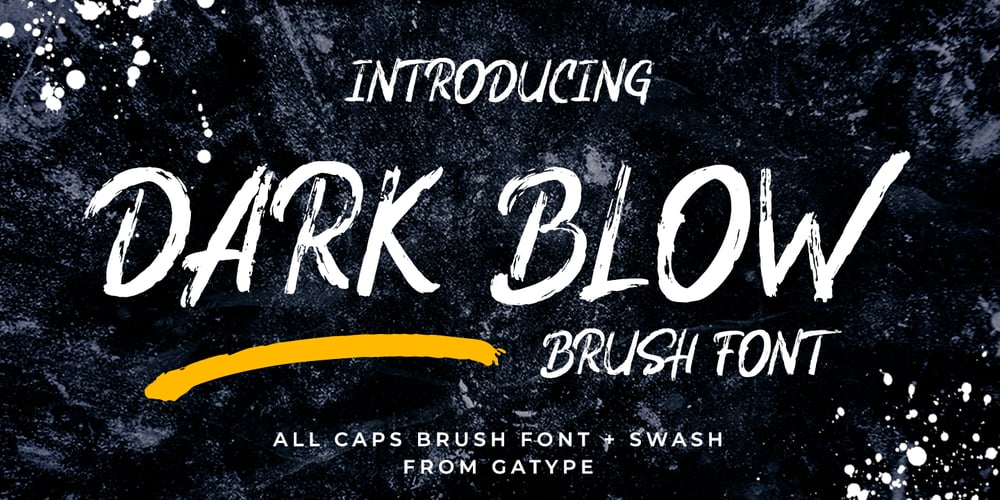
Dark Blow Swash Font Family was designed by khaidir and published by Gatype. Dark Blow Swash contains 2 styles and family package options. Dark Blow Brush Font is a new font with textured stroke detail, also provided some ligatures and swashes extra.Perfect for projects posters, logos, product packaging, invitations, greeting cards, brands, news, blogs, everything including personal charm etc.Thanks so much for looking and please let me know if you have any questions.